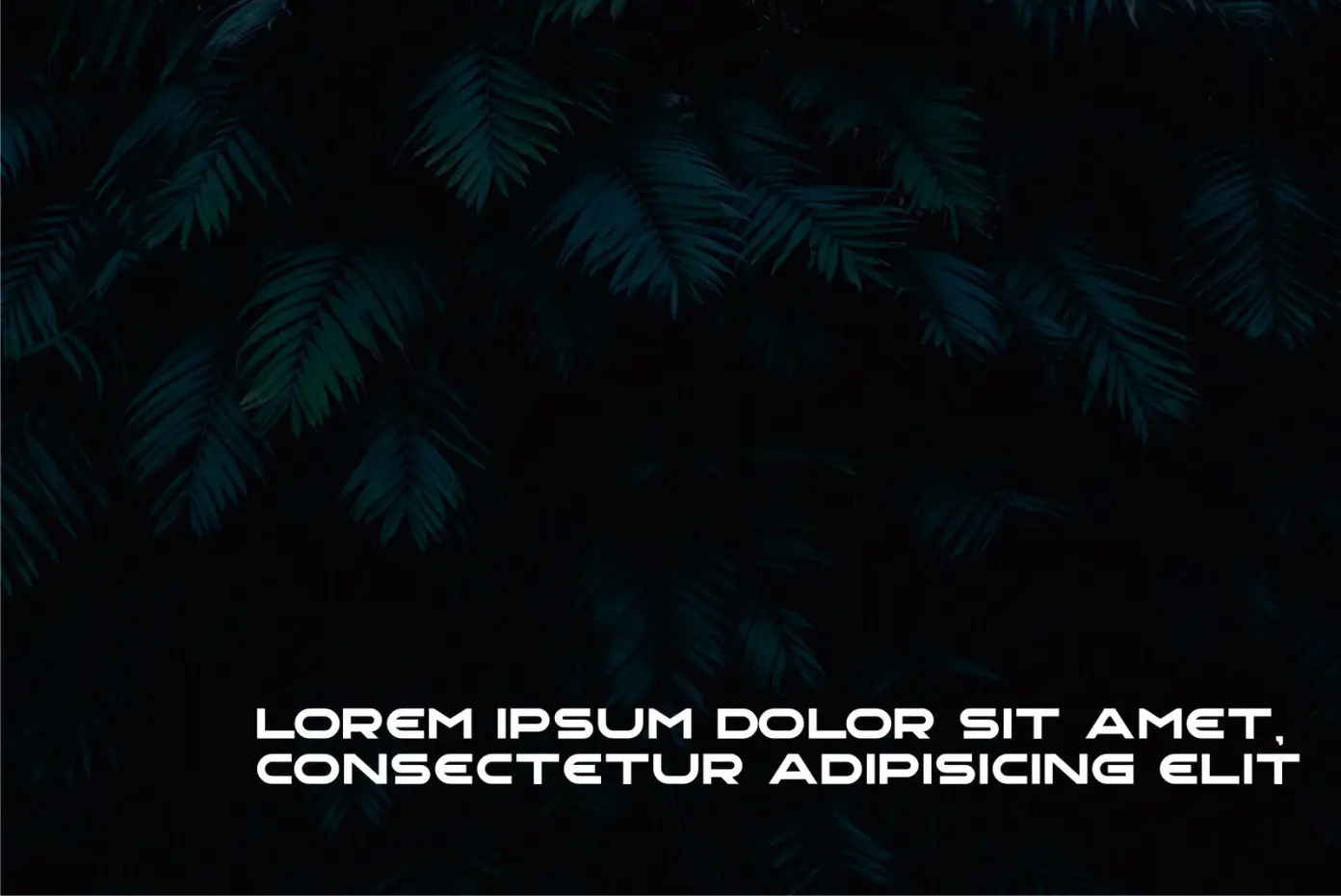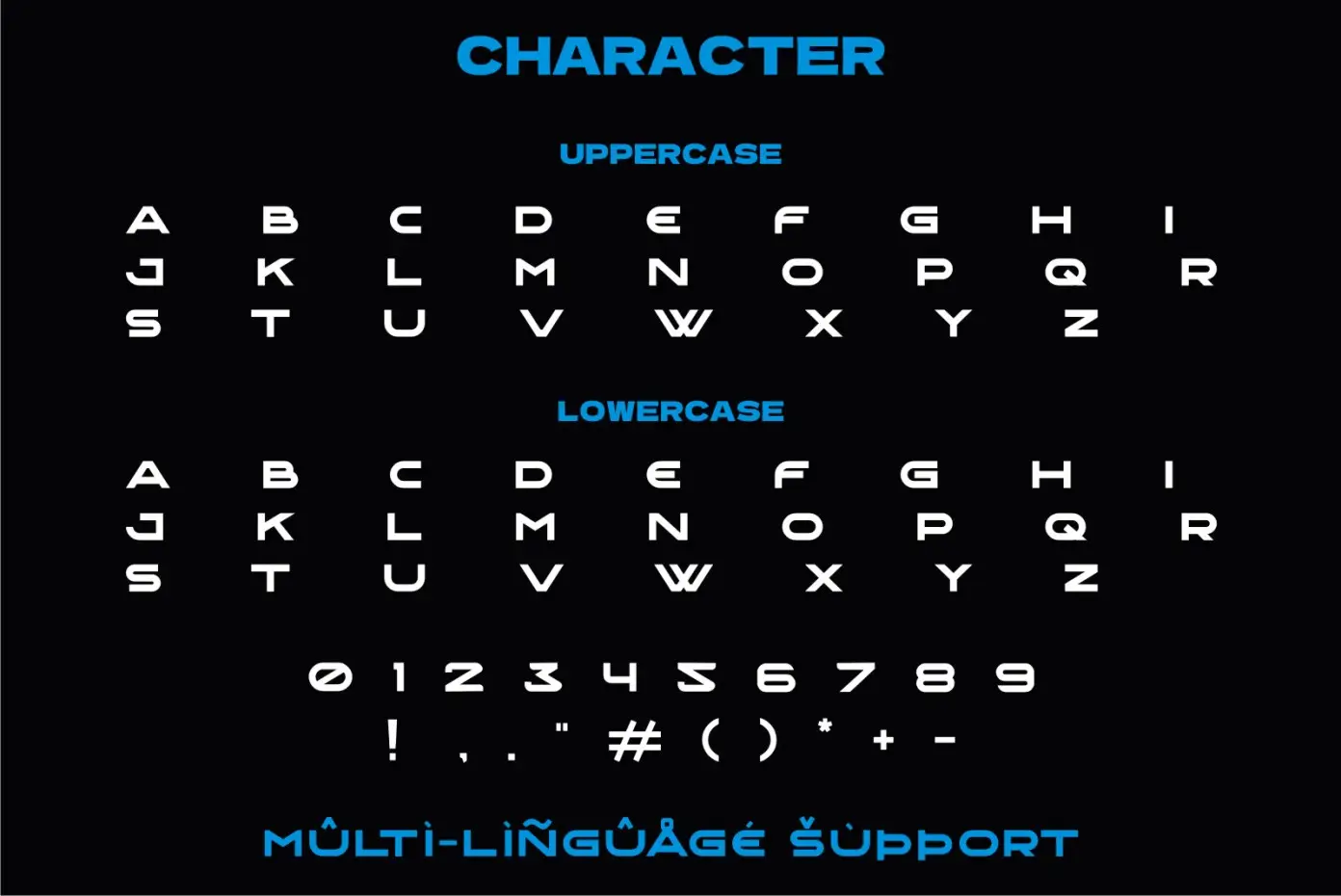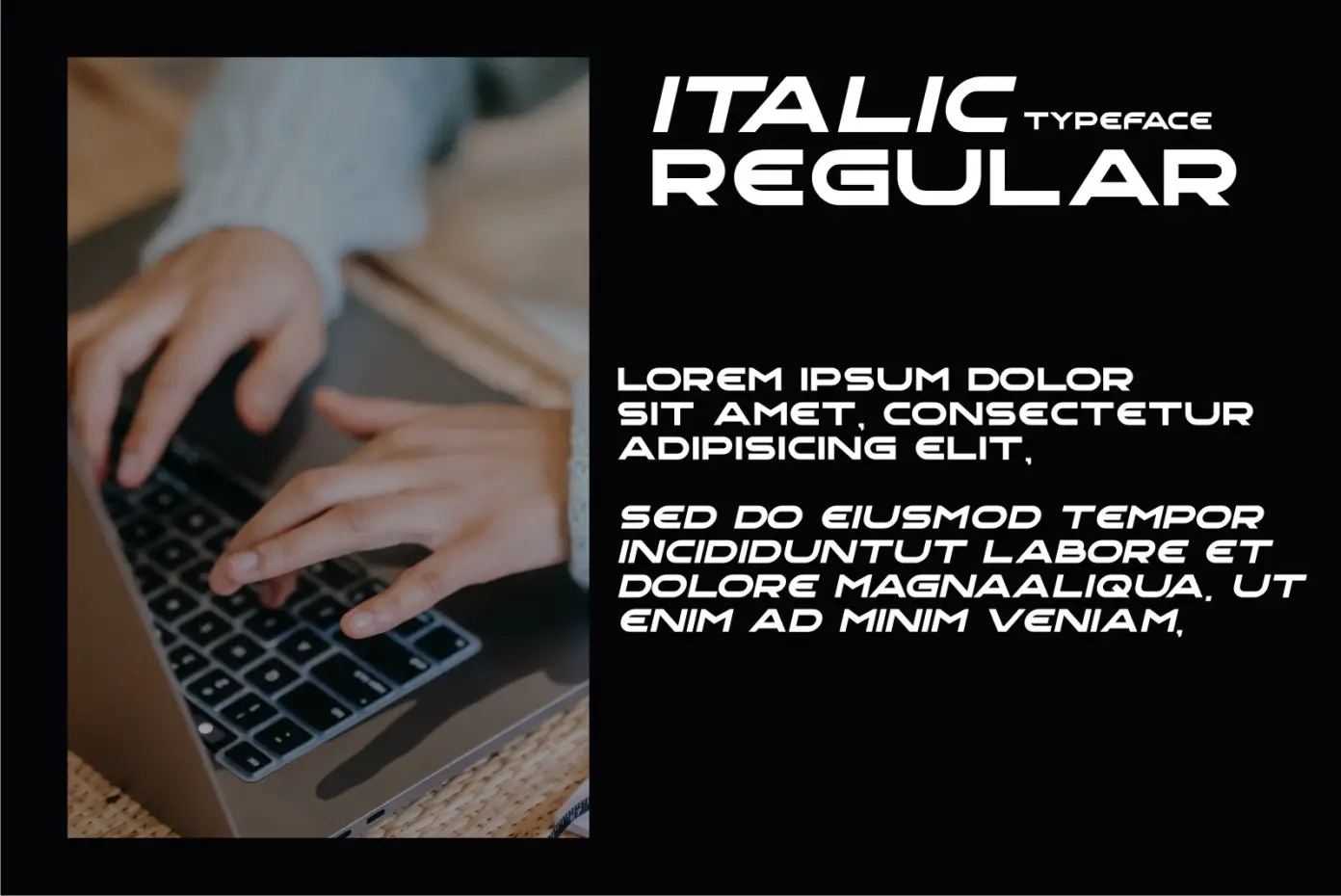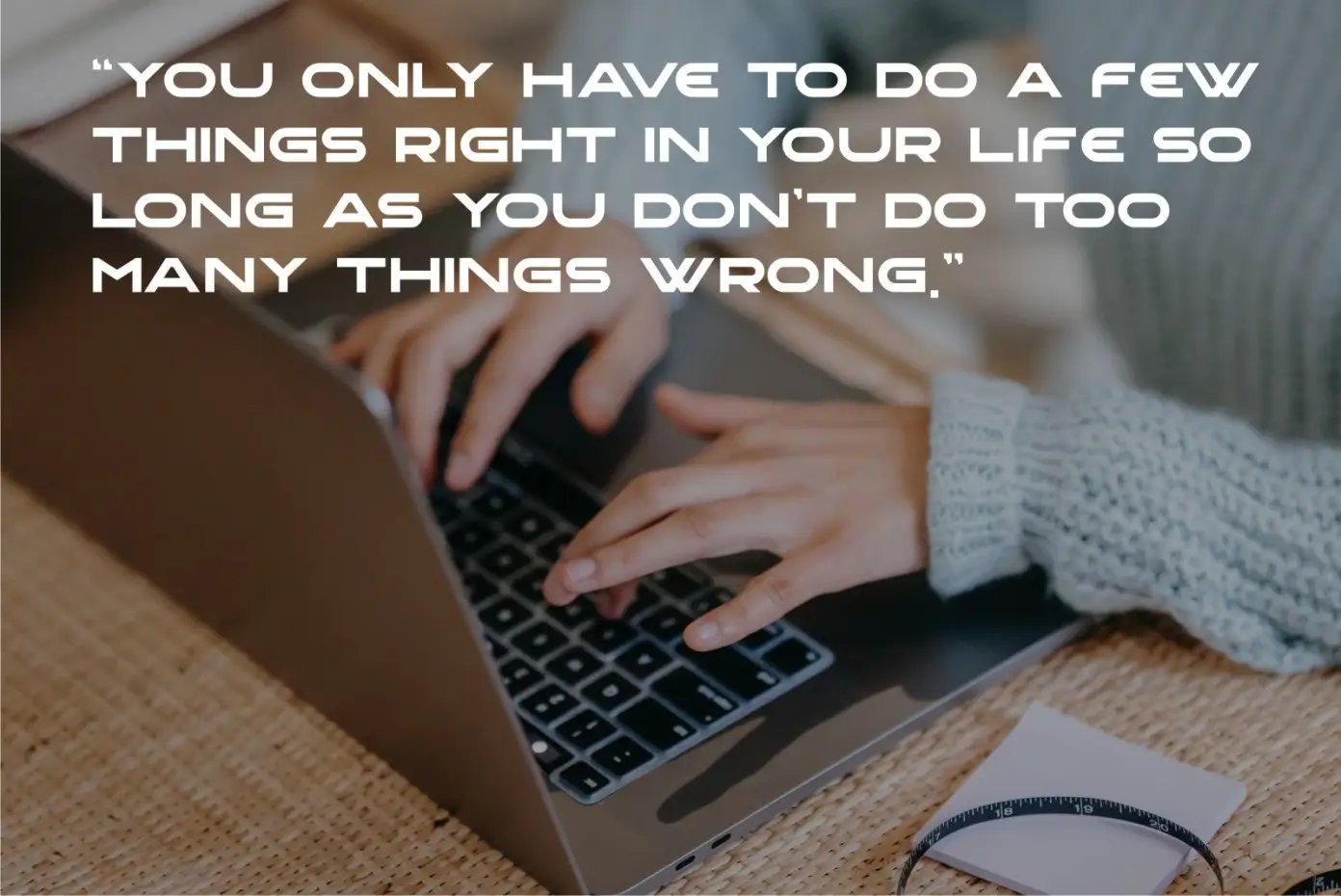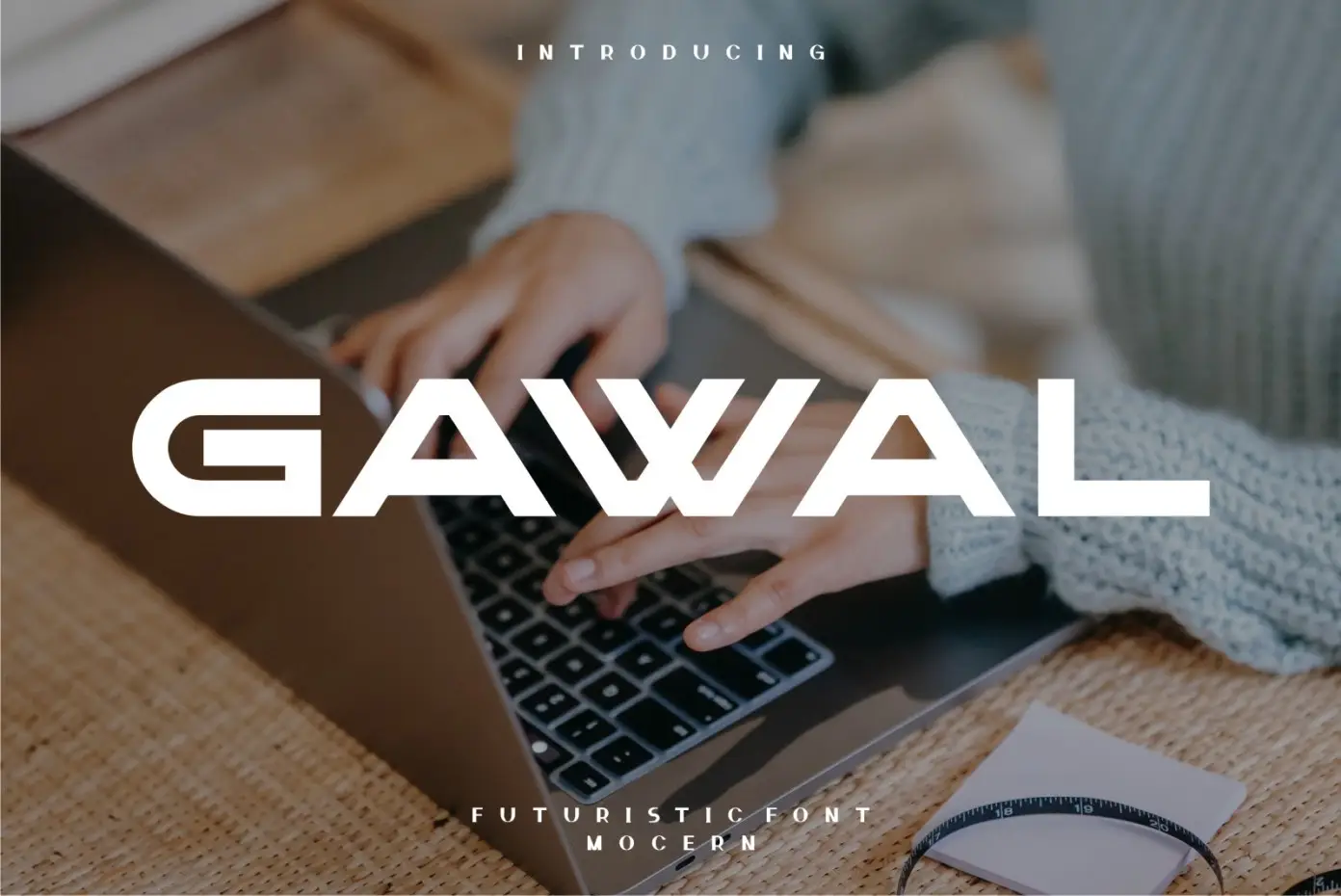
Gawal Display Font
The Gawal Display Font is a striking typeface designed to make a bold statement in any project. With its unique character shapes and eye-catching aesthetics, this font is perfect for branding, logos, and headlines.
• Styles: Display
• Ideal for creating impactful logos and branding materials.
• Use in promotional materials to grab attention.
• Perfect for web design, ensuring readability and style.